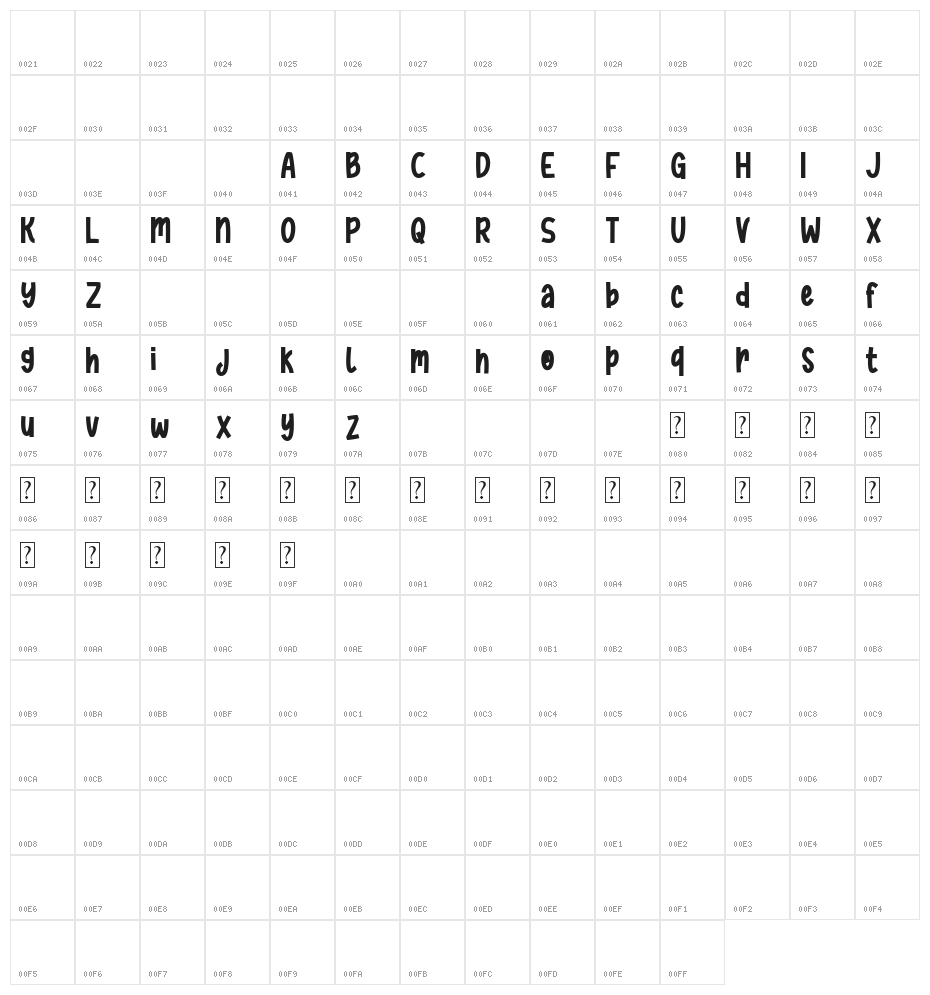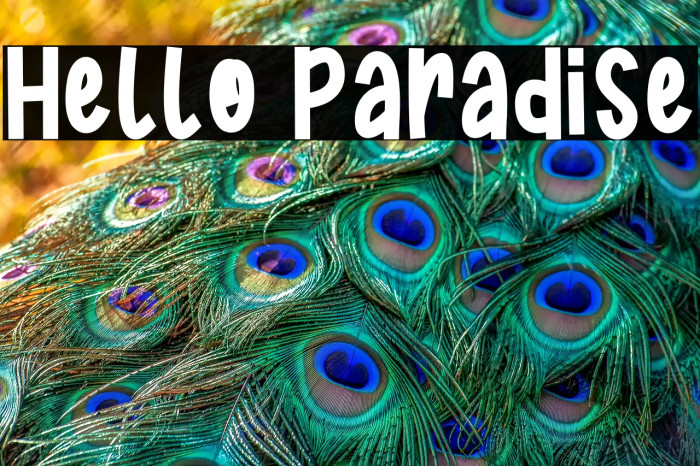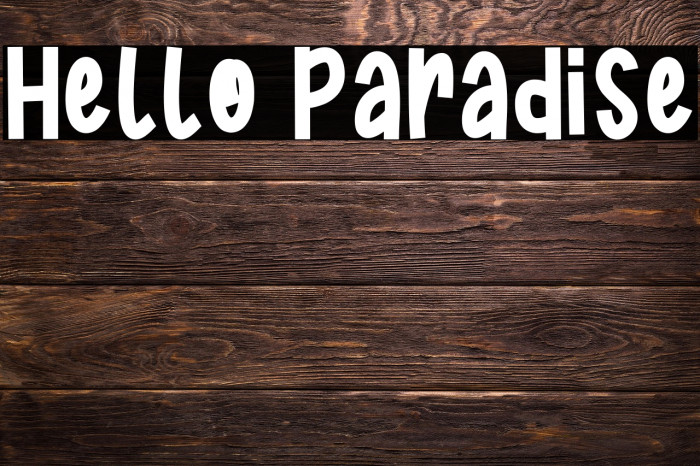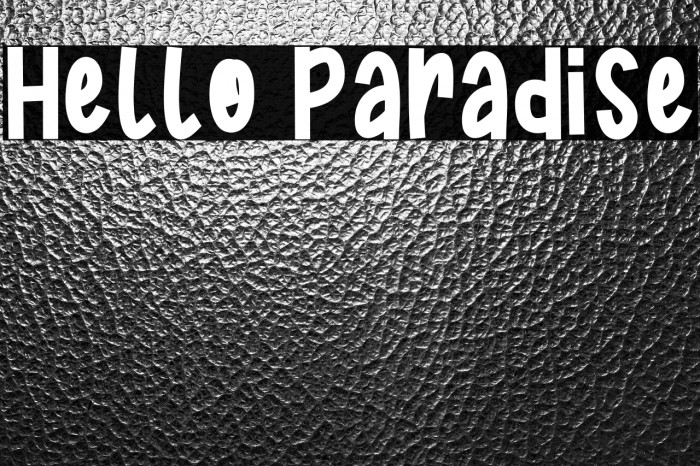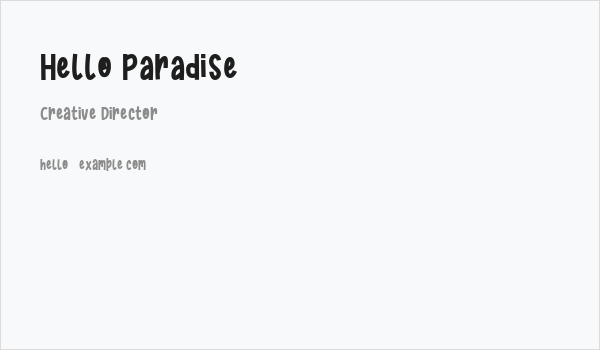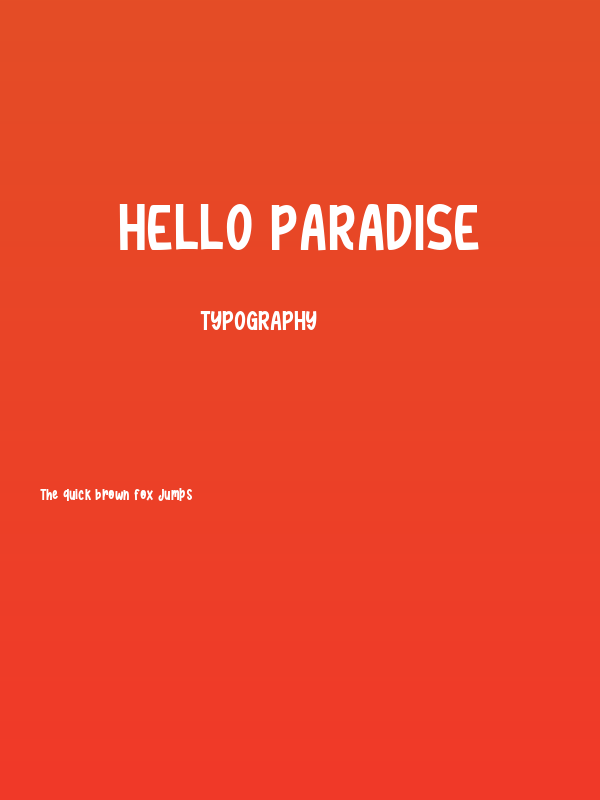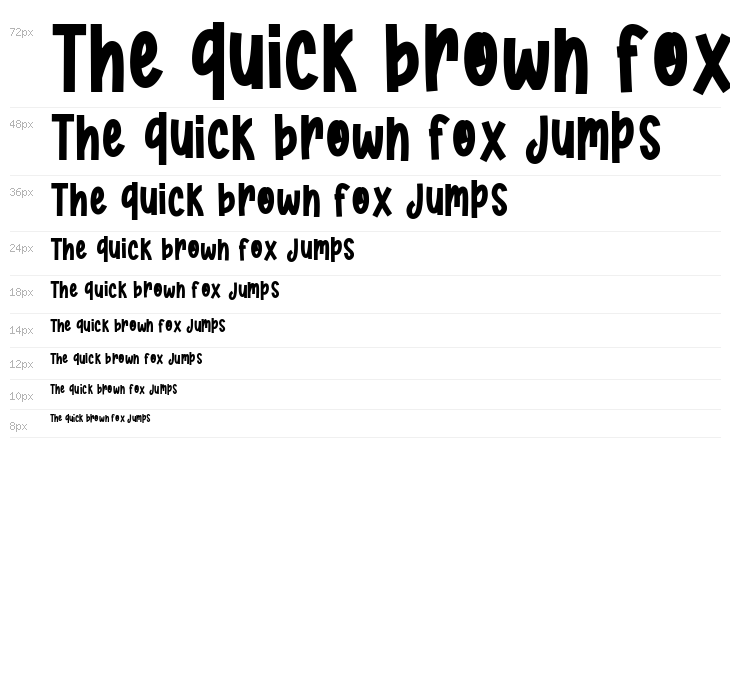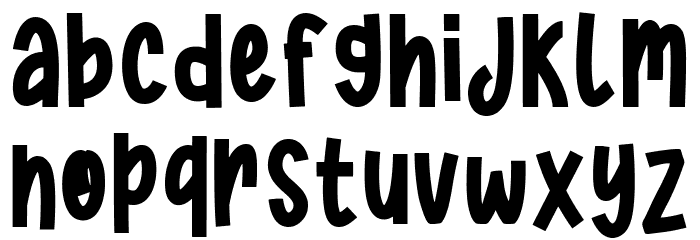
Hello Paradise Font
Hello Paradise Description
This font features a playful and bold style with a hand-drawn appearance. The characters are slightly irregular, giving it a whimsical and casual feel. The uppercase and lowercase letters maintain a consistent weight, with rounded edges and a friendly demeanor. The numbers and special characters follow the same playful style, making it suitable for informal and creative projects. The overall look is approachable and fun, ideal for designs that aim to convey warmth and friendliness.
| Proposed Projects | Ideal for children's books, playful branding, greeting cards, and casual event invitations. |